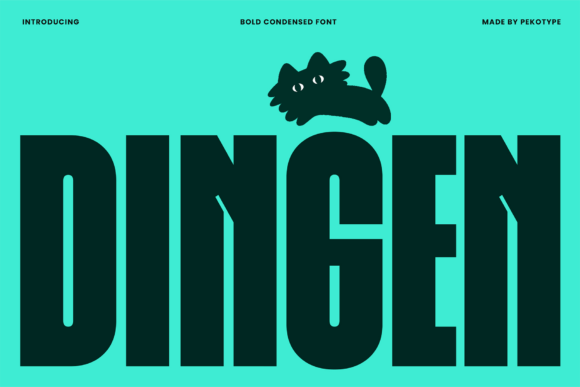
How Dingen Transformed My Campaign Headlines
I was in the final stretch of preparing a product launch for a new line of eco-friendly skincare. The visuals were almost ready, but something felt off. The headlines weren’t cutting through the noise. That’s when I decided to try Dingen, a bold, condensed sans-serif font with tall proportions and strong shapes. It wasn’t just about looking good—it was about standing out.
Dingen has this modern, confident look that immediately grabs attention. Its clean structure makes it perfect for headlines, callouts, and any text that needs to be read quickly. I used it on social media posts, YouTube thumbnails, and even email banners. Every time, it brought clarity and strength to the message.
Designing With Dingen: A Real Campaign Story
Let me walk you through how I integrated Dingen into my campaign workflow. I started with the Instagram content series. Each post needed a unique visual identity while maintaining brand consistency. I chose Dingen for the main headlines because it had the right balance of boldness and readability.
For the first post, I used Dingen to create a short, punchy headline: “Clean Beauty, Zero Compromise.” The font’s tall proportions made the text feel more impactful, especially on mobile screens where users scroll fast. I paired it with a clean sans-serif font for the supporting text to keep everything balanced.
Next came the YouTube thumbnail set. Thumbnails need to be instantly recognizable, and Dingen delivered. I used it for the title of each video, making sure they stood out against the background. Even when compressed or viewed as a small preview, the text remained legible and eye-catching.
On Pinterest, I created a series of pins promoting the new product line. Dingen worked well for the titles and taglines, helping to establish a cohesive visual language across all images. The strong shapes and modern appeal of the font aligned perfectly with the brand’s eco-conscious messaging.
Why Dingen Works For Campaign Designers
If you're working on a campaign, here’s why Dingen might be the font you’re missing:
- Readability: Despite its bold style, Dingen is highly readable, especially on small screens and in fast-scrolling feeds.
- Visual Hierarchy: It naturally draws the eye to the most important parts of your design, making your message clearer and more effective.
- Brand Recognition: Using a consistent typeface like Dingen across all your campaign assets helps reinforce brand identity and make your content more memorable.
- Mobile Optimization: The condensed format works well for mobile previews, thumbnails, and image overlays without losing impact.
I also found that Dingen worked best for short headlines, callouts, and decorative titles. It didn’t overpower the design but instead elevated it. For longer paragraphs or body text, I paired it with a complementary sans-serif font to maintain visual balance.
Font Pairing And Practical Tips
When using Dingen, I recommend pairing it with a clean sans-serif font like Helvetica Neue or Roboto for body text. This combination keeps the design modern yet approachable. For a more creative look, I’ve also used serif fonts like Georgia for subtle contrast in editorial-style designs.
Before diving into a campaign, I always check the font’s included styles, alternates, ligatures, weights, and file formats. Dingen offers multiple weights, which gave me flexibility in different contexts—from light headers to bold promotional banners.
Another thing to consider is multilingual support and commercial font licensing. Since I was using Dingen for ads and branded templates, having full commercial rights was essential. It also helped avoid any issues with character coverage in different languages.
Real Examples From My Workflow
I tested Dingen across several use cases:
- Sale Announcement: Used for a flash sale banner, where the headline “30% Off Ends Tonight” needed to stand out against a busy background.
- Product Teaser: Created a teaser graphic for the product launch with a bold Dingen headline: “Introducing the Future of Skincare.”
- Webinar Banner: Designed a webinar promotion with Dingen as the main text, ensuring the title was visible even at smaller sizes.
- Email Banner: Included a Dingen headline in an email newsletter to draw attention to the featured product.
Each time, the font added a layer of confidence and clarity that made the campaign feel more polished and professional.
Whether you're launching a product, running a seasonal sale, or building a social media series, Dingen can help you communicate more effectively. It's not just a font—it's a tool that enhances your message, strengthens your brand, and ensures your content stands out in a crowded digital space.